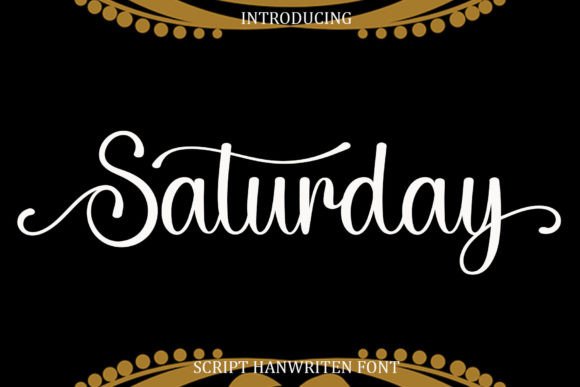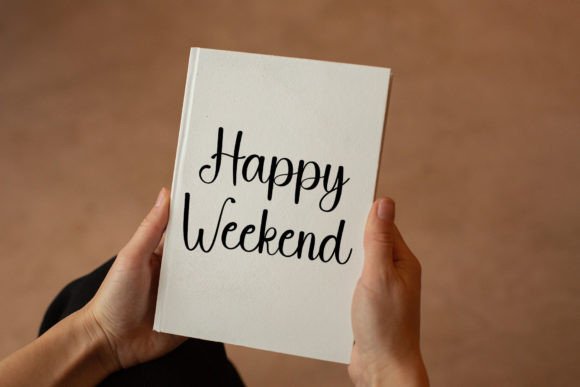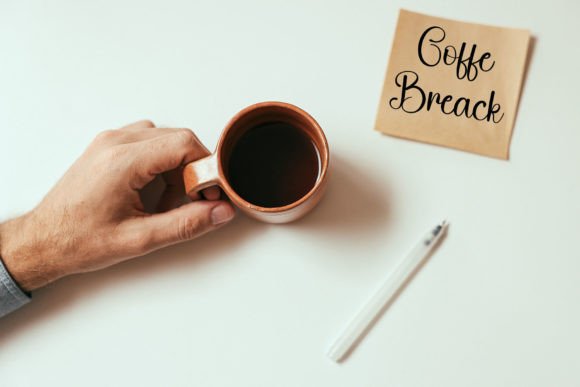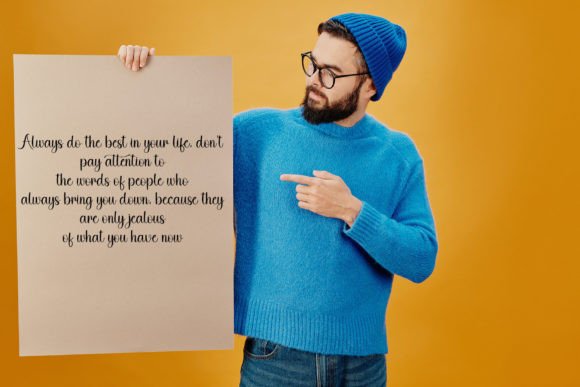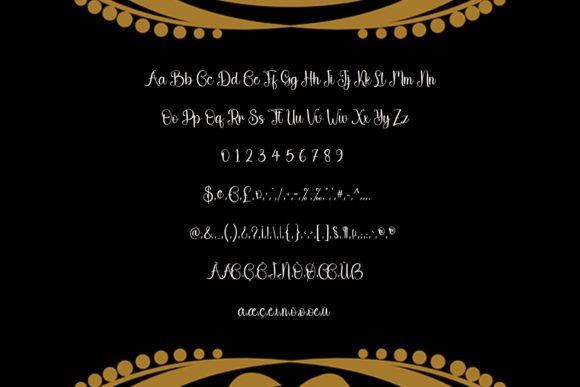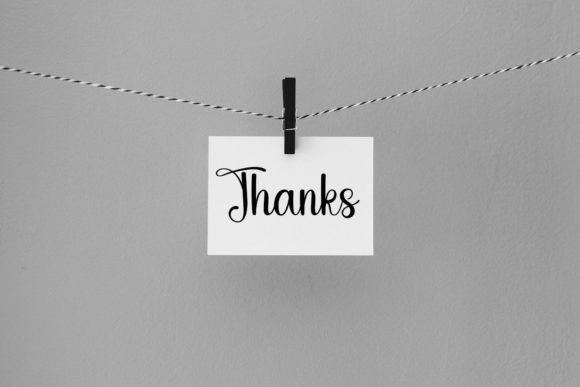
Saturday Font
About Saturday Font
“Saturday” is not just a font; it’s a sweet and beautiful handwritten typeface designed to bring a touch of luxury to your design projects. With characters that dance along the baseline, this font offers a unique and delightful style that adds a spark of sophistication to any creative endeavor.
The sweetness of “Saturday” is evident in its carefully crafted handwritten style. Each character is designed with a sense of charm and warmth, making it a delightful choice for projects that seek a touch of elegance and personality. This makes the font ideal for various applications, from invitations to branding and beyond.
The dancing baseline in “Saturday” adds a playful and dynamic element to the font. This feature contributes to the font’s uniqueness, creating a sense of movement and liveliness in the text. It becomes an ideal choice for designs that require a bit of flair and personality, ensuring that your text stands out.
The luxury spark that “Saturday” brings to your design projects is achieved through its overall aesthetic. The handwritten charm combined with its dynamic baseline makes it suitable for a variety of applications, from elegant invitations to sophisticated branding. The font becomes a valuable asset for creating designs that exude a sense of style and refinement.
Embrace “Saturday” to infuse your designs with a touch of luxury. Let it be the font that adds a spark of sophistication to your creative projects. “Saturday” is more than just a font; it’s an invitation to create designs that stand out with a unique blend of sweetness and elegance.